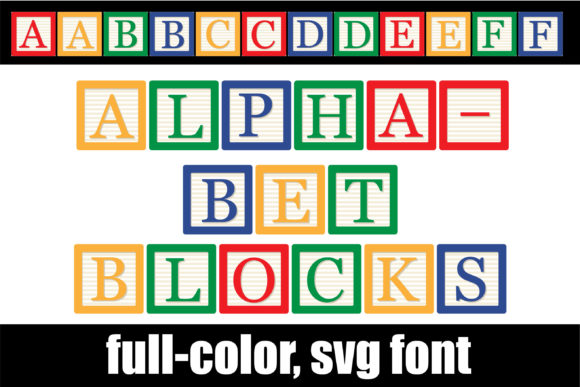
The Alphabet Blocks Font: A Colorful Delight for Designers and Crafters
I’ll never forget the moment I stumbled upon the perfect font for a children’s project I was working on. I had been searching for what felt like hours, trying out font after font, but nothing seemed quite right. That was until I discovered the Alphabet Blocks Font – a vibrant, full-color font that instantly brought my design to life. In this article, I’ll share my experience with this delightful font, its features, and how to make the most of it in various design platforms.
First Impressions: A Personal Review
As soon as I started using the Alphabet Blocks Font, I knew I was in love. Here’s what I love about it:
- ✨ Vibrant Color Palette: The font features a youthful color scheme reminiscent of children’s alphabet blocks.
- ✅ Easy to Use: The font comes with an intuitive design that makes it easy to navigate and apply in various projects.
- 🎉 Upper and Lower Alt Case: A second upper and lower alt case is available through your system’s character map, offering flexibility in design.
While the Alphabet Blocks Font is a fantastic addition to any design project, there are a few quirks to be aware of:
The Story Behind Alphabet Blocks Font
The Alphabet Blocks Font was inspired by the classic children’s toy, alphabet blocks. The designer aimed to capture the playful, educational essence of these blocks in a digital font. By incorporating a full-color palette and alternative letterforms, the font brings a sense of nostalgia and fun to any project.
In conclusion, the Alphabet Blocks Font is a delightful addition to any designer’s toolkit, offering a unique blend of color, playfulness, and educational charm. Whether you’re working on a children’s project, a craft, or simply looking for a font that adds a touch of whimsy to your design, Alphabet Blocks Font is definitely worth exploring.